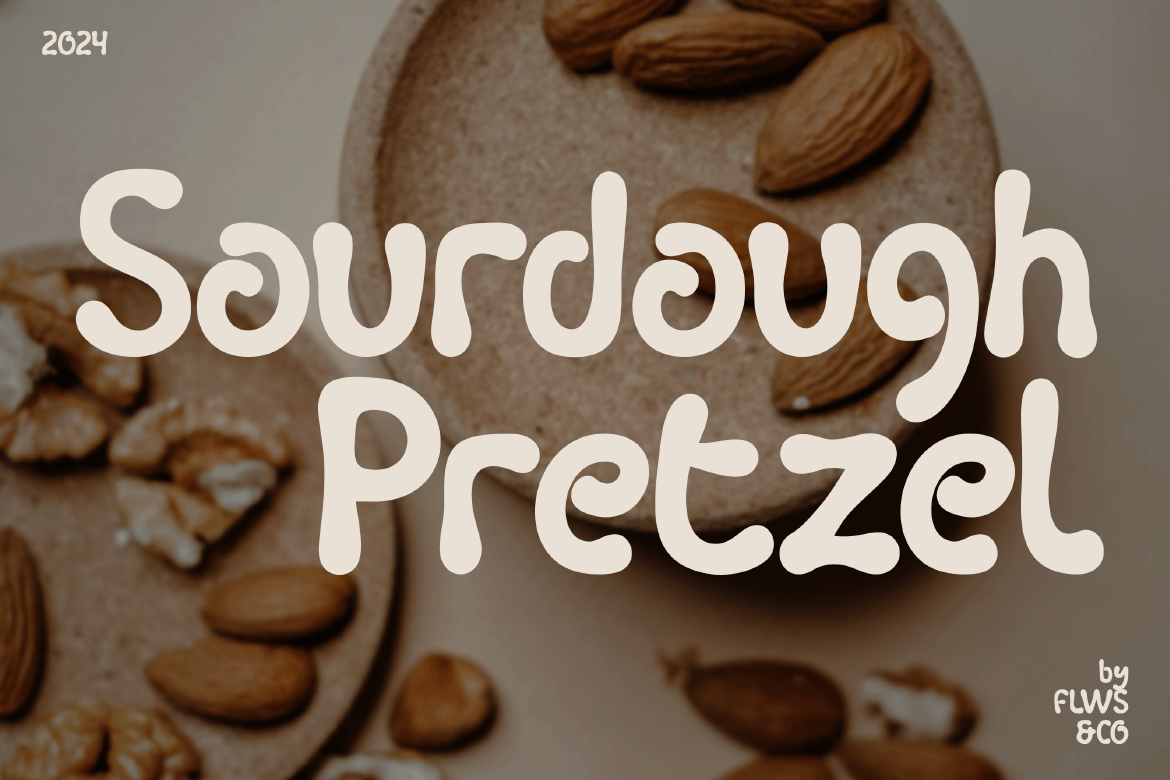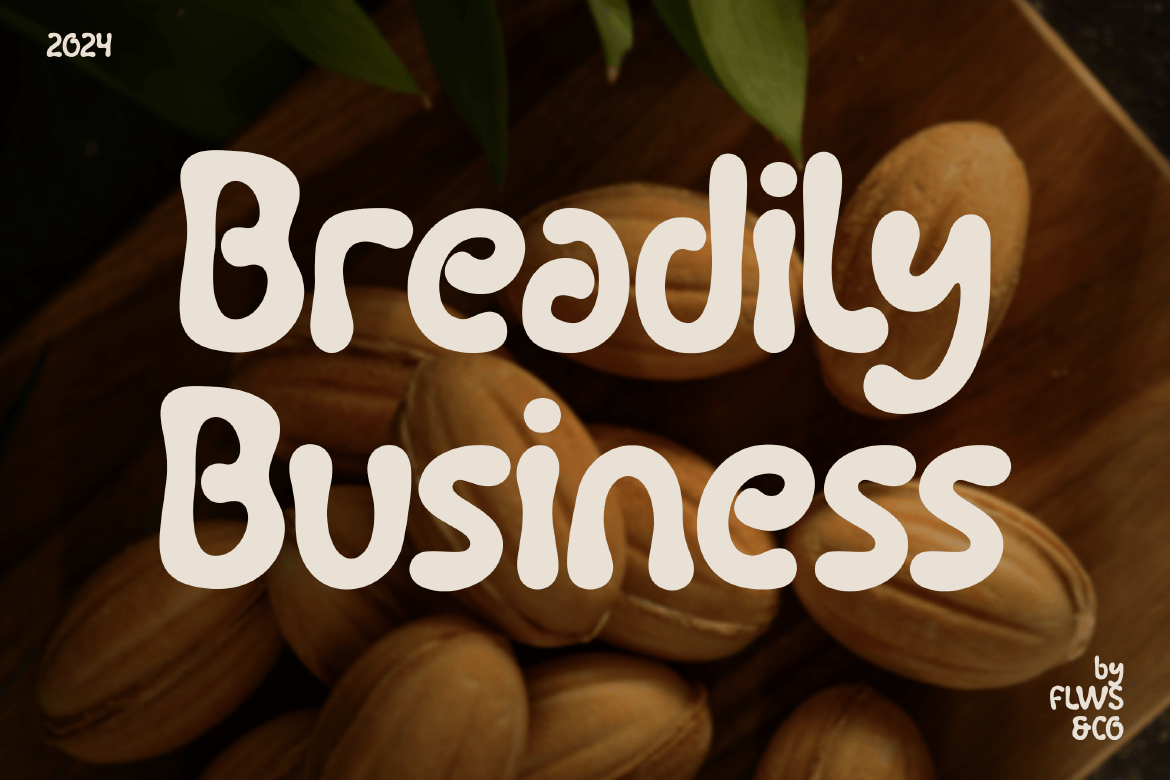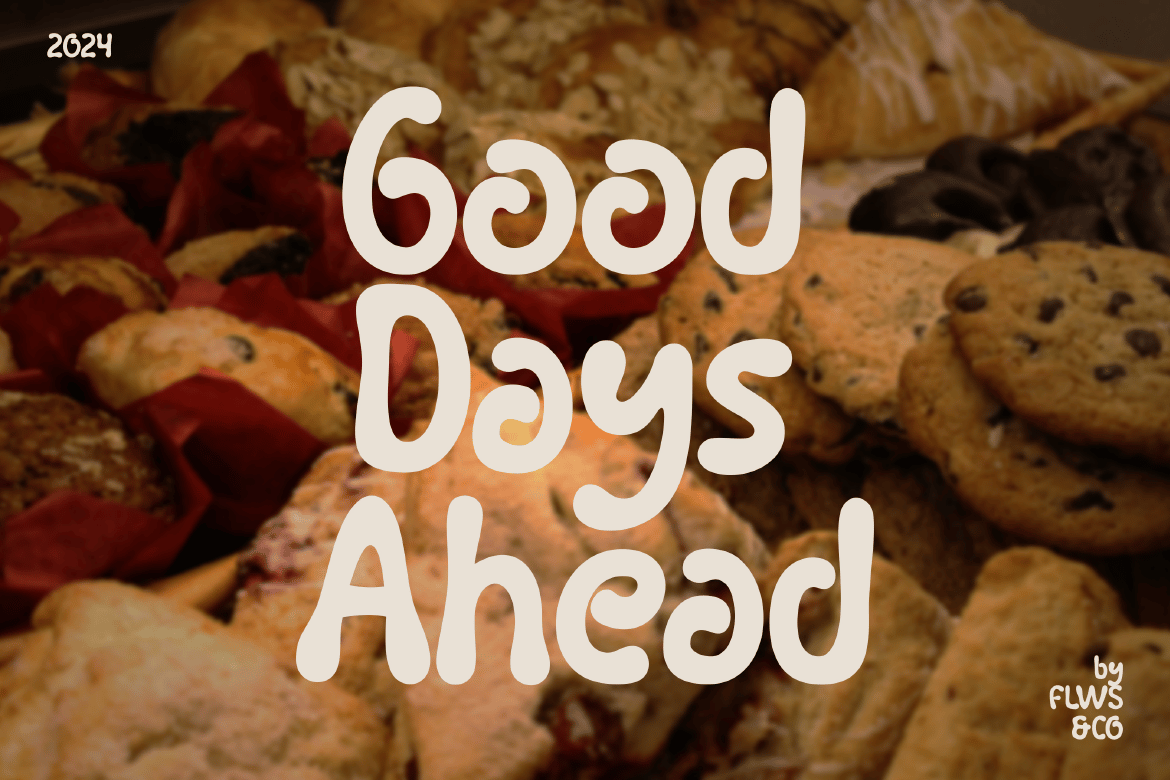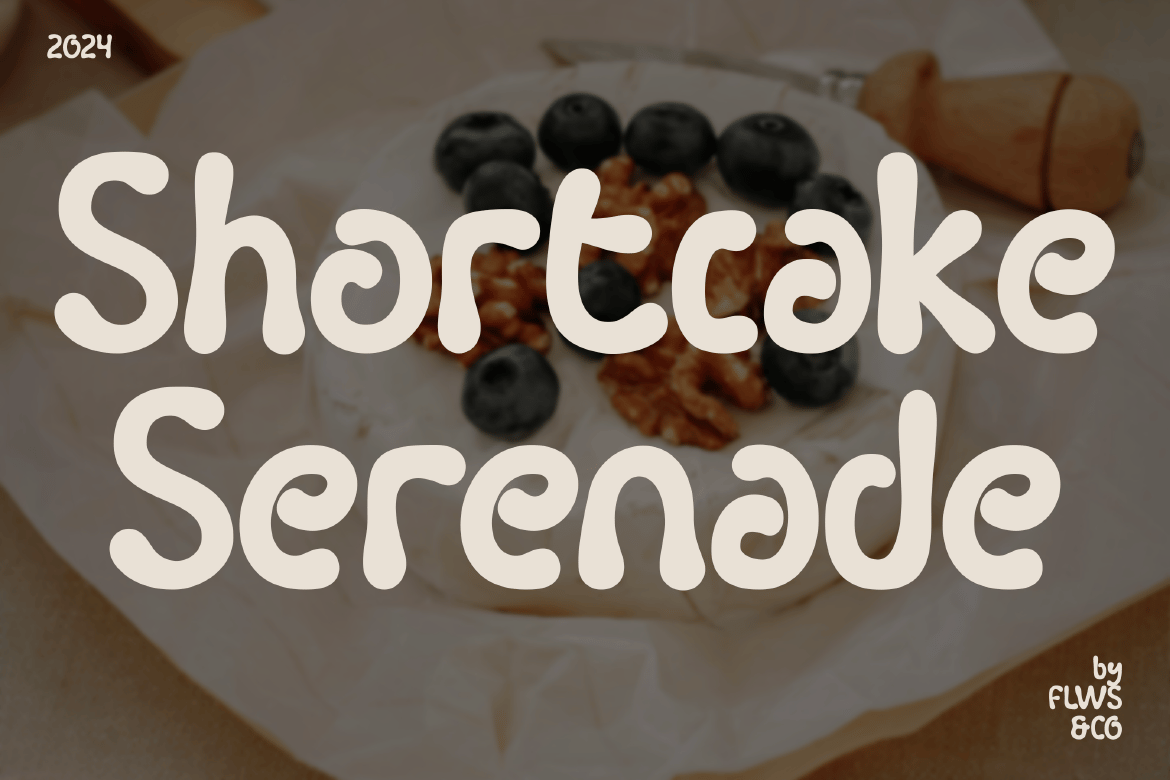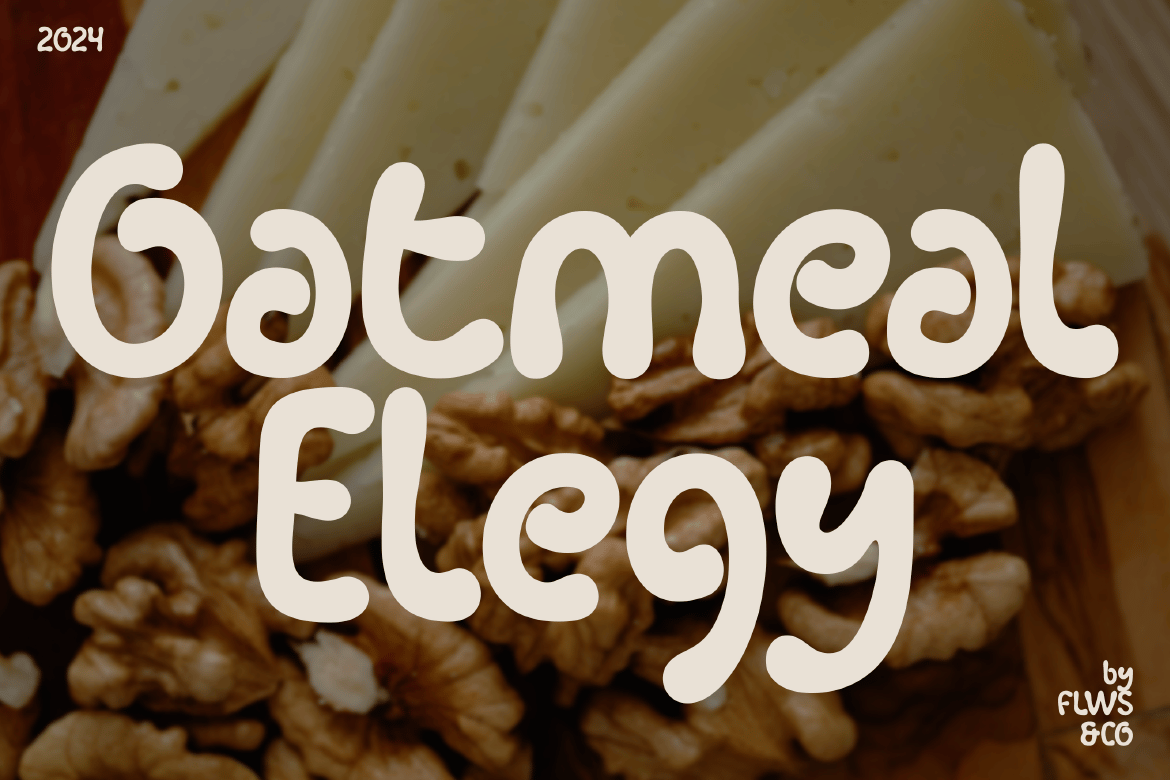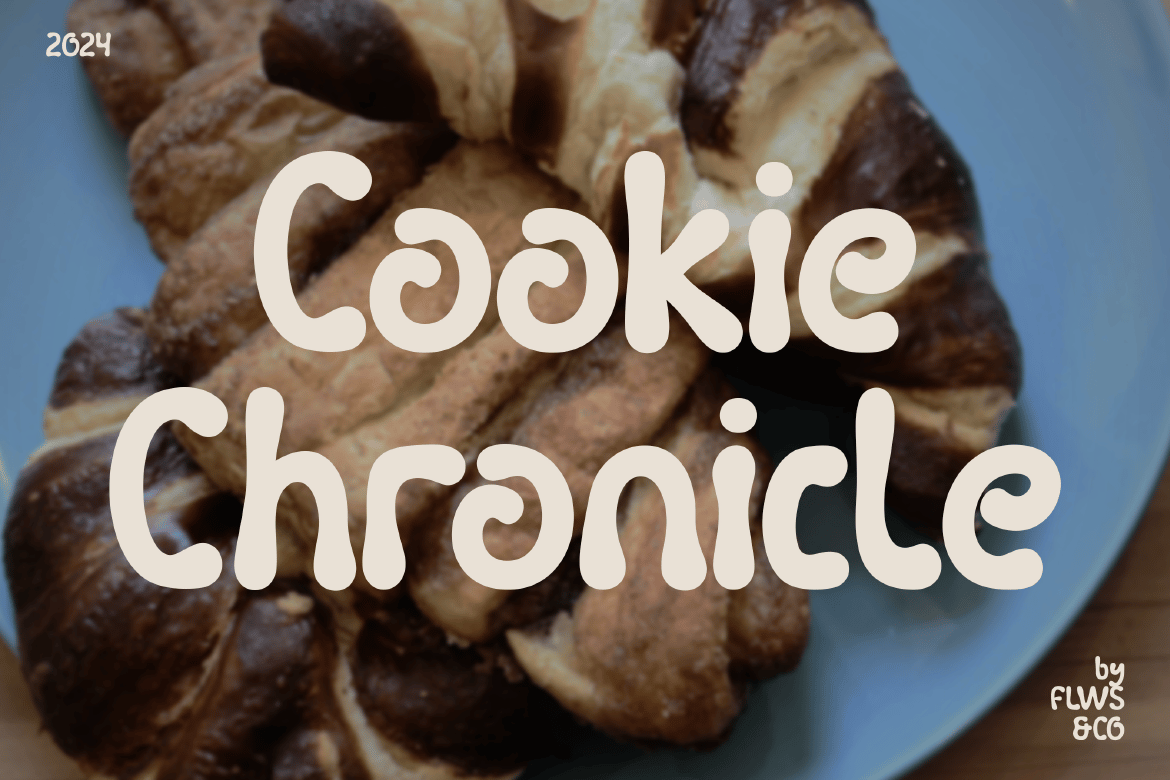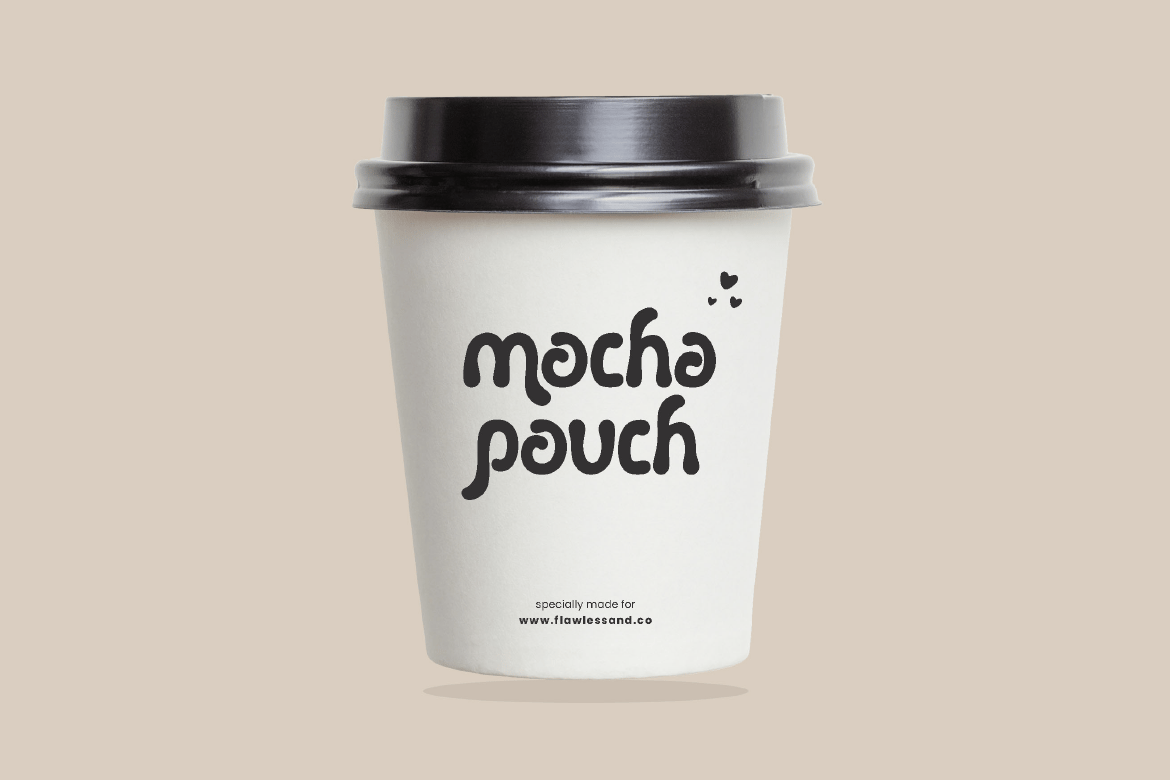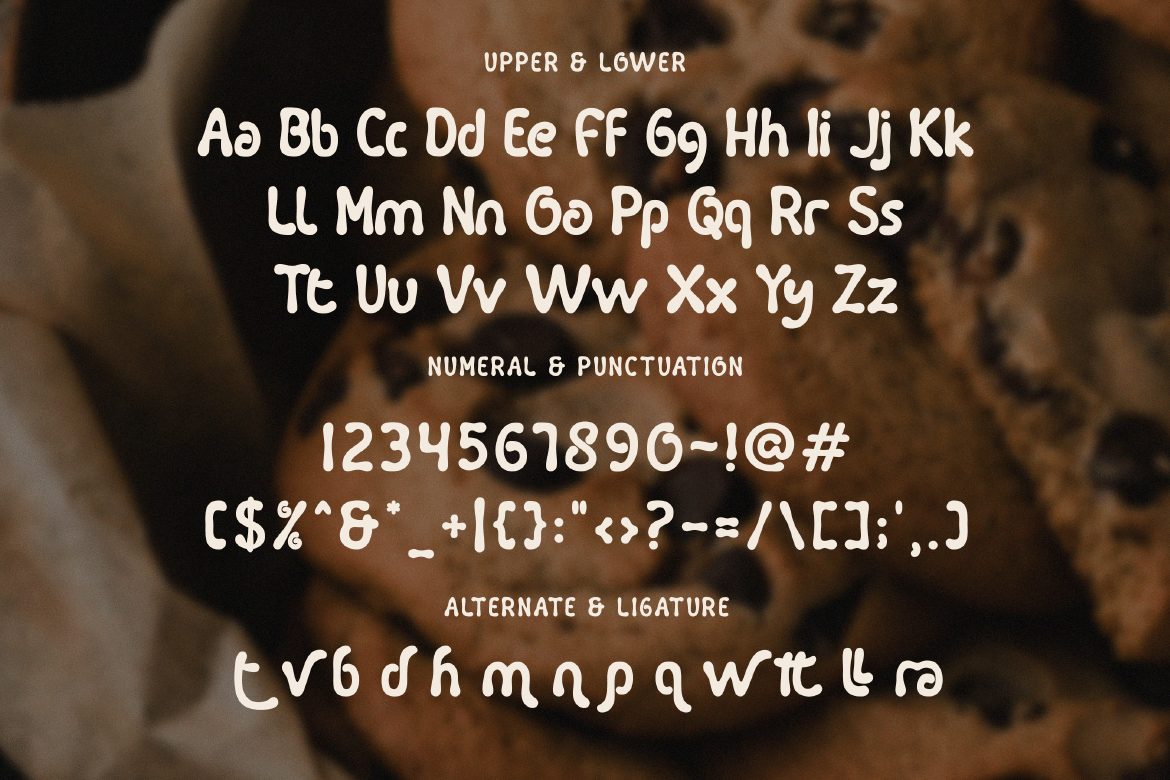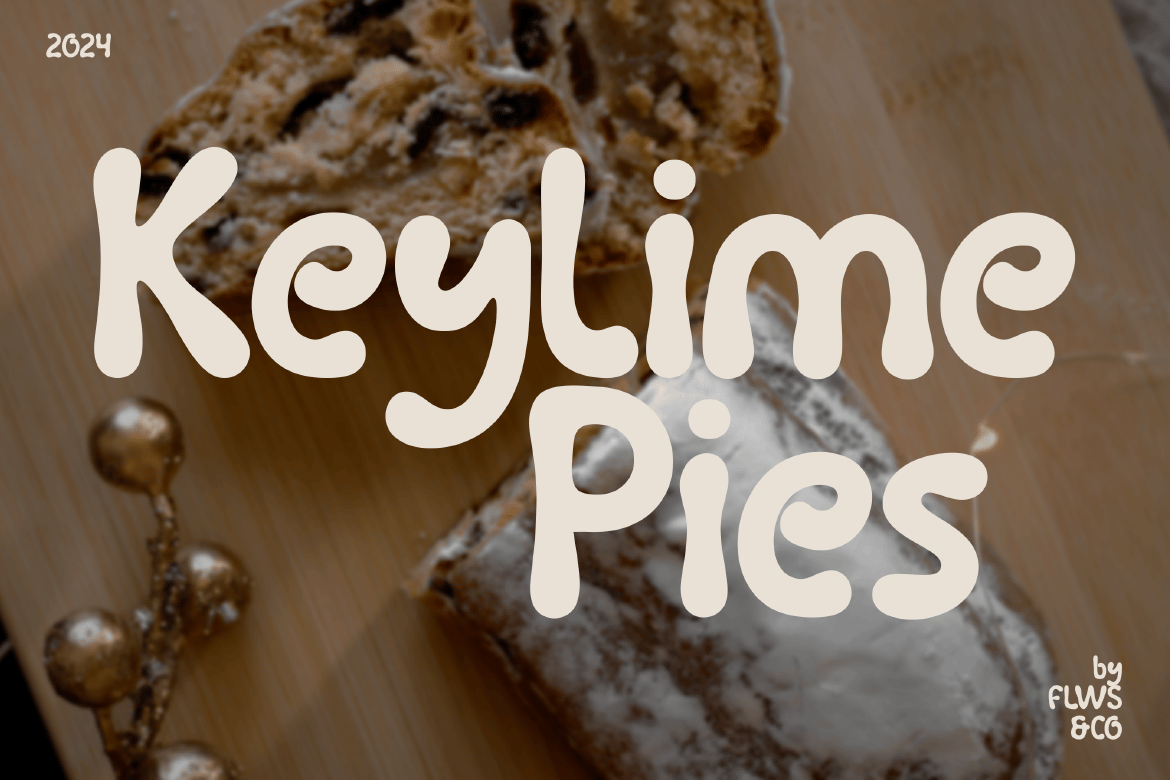
Choco Fantine – Fun Handwritten Brand Font
5Introducing “Choco Fantine,” a delightful display font designed to bring a playful yet professional touch to your brand. With its bold and eye-catching letterforms, Choco Fantine adds personality and charm to any design, making it perfect for logo creation, packaging, and other branding materials.